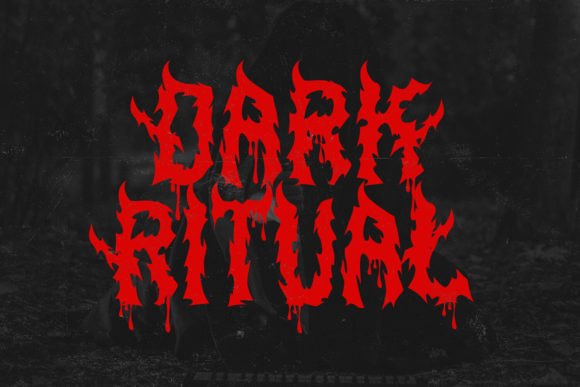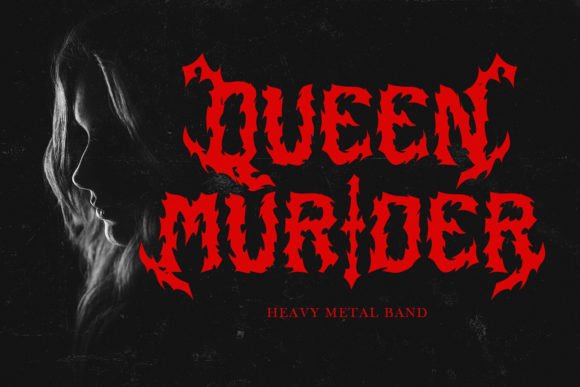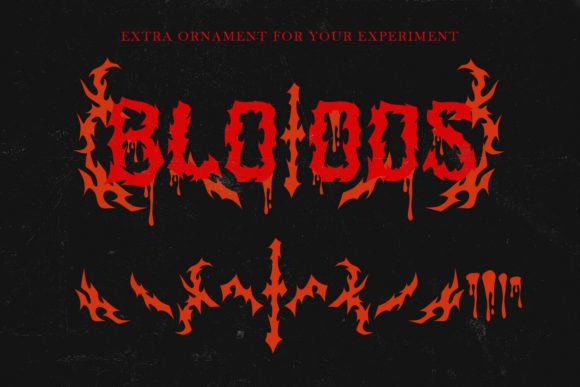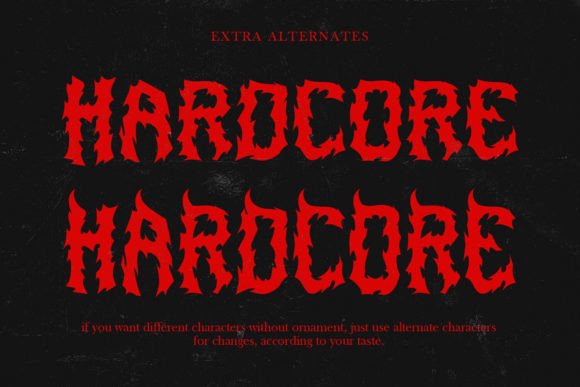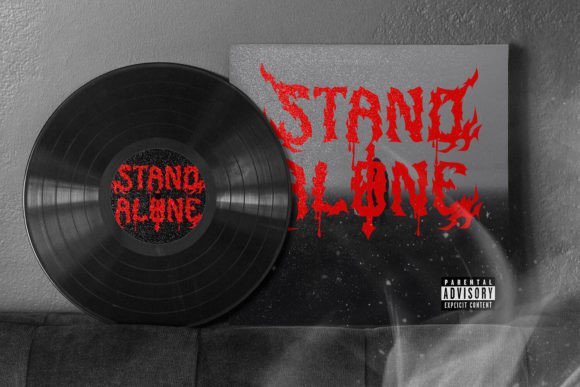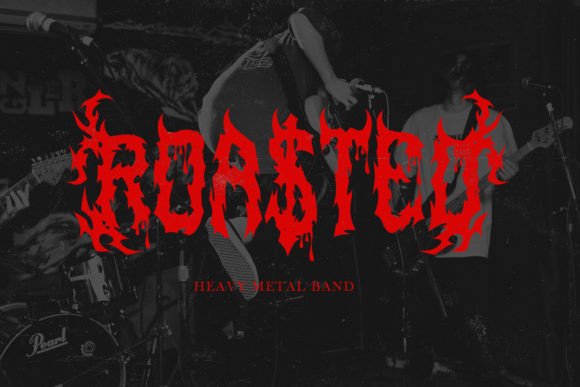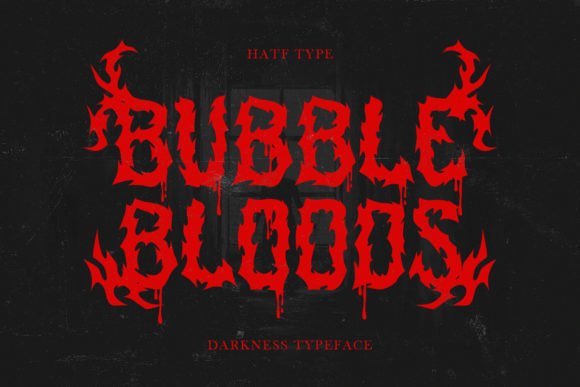
Bubblebloods Font: A Unique Blackletter Display Font for Gothic and Horror Metal Styles
Are you a designer or crafter looking for a font that can add a touch of darkness and elegance to your projects? Look no further than the Bubblebloods Font. This blackletter display font is inspired by gothic and horror metal styles, making it perfect for any project that requires a unique and bold look.
What is Bubblebloods Font?
Bubblebloods Font is a blackletter display font that features a distinctive and ornate design. The font is characterized by its dramatic and intricate lettering, which is reminiscent of traditional gothic and horror metal styles. The font comes with additional ornaments that can be used to add an extra layer of complexity and interest to your designs.
Unique Features of Bubblebloods Font
So, what sets Bubblebloods Font apart from other fonts? Here are a few of its unique features:
• Blackletter design: The font features a traditional blackletter design, which is characterized by its dramatic and intricate lettering.
• Ornate ornaments: The font comes with a range of ornaments that can be used to add an extra layer of complexity and interest to your designs.
• Gothic and horror metal inspiration: The font is inspired by gothic and horror metal styles, making it perfect for any project that requires a bold and dramatic look.
• Unique shape: The font has a unique shape that is very suitable for any project you will use with this theme.
Why Use Bubblebloods Font?
So, why should you use Bubblebloods Font for your projects? Here are a few reasons:
• Add a touch of darkness and elegance: The font’s dramatic and intricate design can add a touch of darkness and elegance to your projects.
• Perfect for gothic and horror metal styles: The font is inspired by gothic and horror metal styles, making it perfect for any project that requires a bold and dramatic look.
• Unique and versatile: The font’s unique shape and design make it very versatile and suitable for a wide range of projects.
• Easily readable: Despite its intricate design, the font is easily readable, making it perfect for use in a variety of contexts.
How to Use Bubblebloods Font
So, how can you use Bubblebloods Font in your projects? Here are a few ideas:
• Logos and branding: The font’s dramatic and intricate design makes it perfect for use in logos and branding.
• Posters and flyers: The font’s bold and dramatic look makes it perfect for use in posters and flyers.
• Social media graphics: The font’s unique shape and design make it perfect for use in social media graphics.
• Merchandise: The font’s dramatic and intricate design makes it perfect for use on merchandise such as t-shirts and stickers.
Tips for Using Bubblebloods Font
Here are a few tips for using Bubblebloods Font:
• Use it sparingly: The font’s intricate design can be overwhelming if used too much. Use it sparingly to add a touch of elegance and sophistication to your designs.
• Experiment with different colors: The font’s dramatic and intricate design looks great in a variety of colors. Experiment with different colors to find the one that works best for your project.
• Pair it with other fonts: The font’s unique shape and design make it perfect for pairing with other fonts. Experiment with different font combinations to find the one that works best for your project.
In conclusion, Bubblebloods Font is a unique and versatile blackletter display font that is perfect for any project that requires a bold and dramatic look. Its intricate design and ornate ornaments make it perfect for use in a variety of contexts, from logos and branding to posters and flyers. With its ease of use and flexibility, Bubblebloods Font is a great addition to any designer’s toolkit.